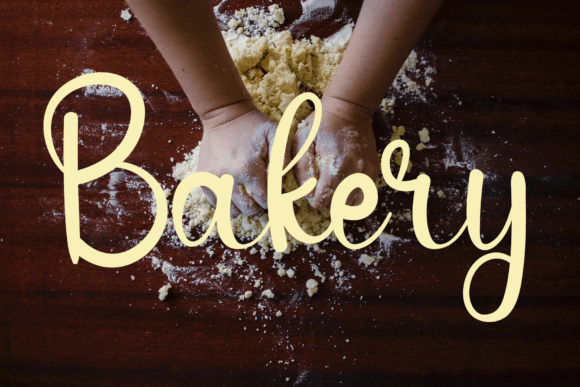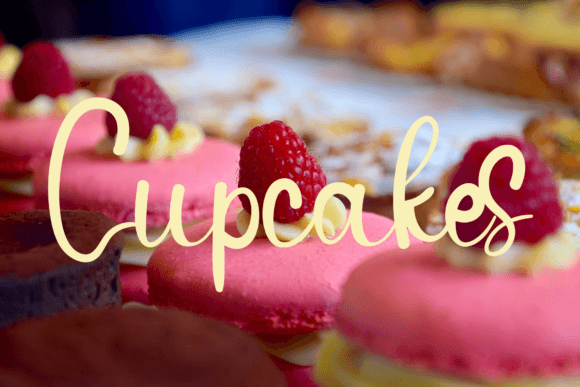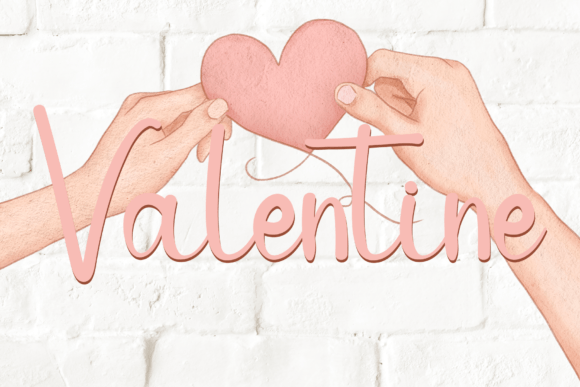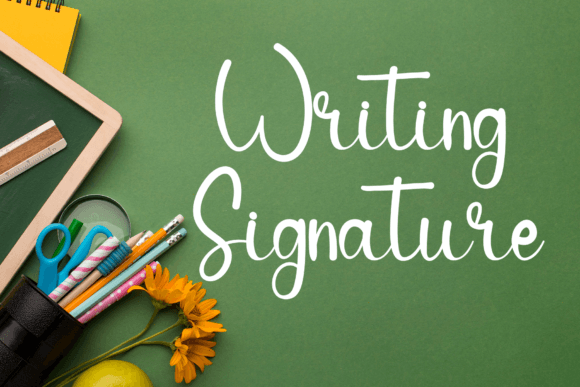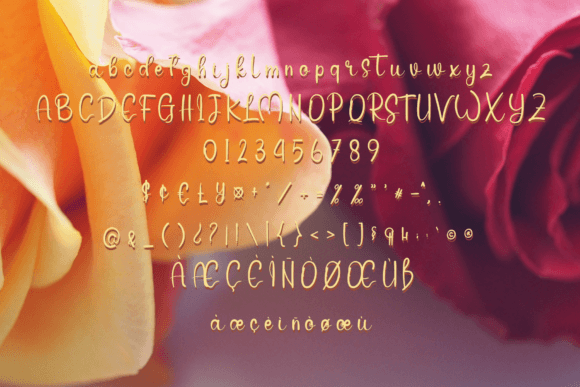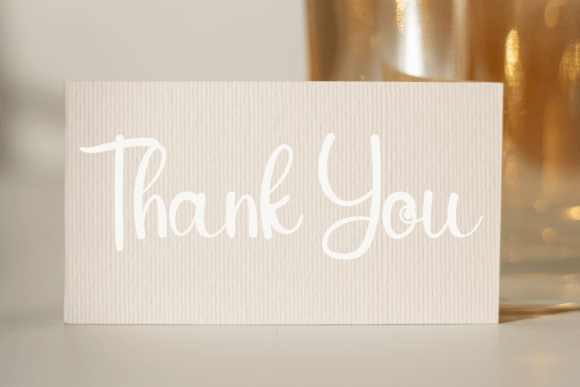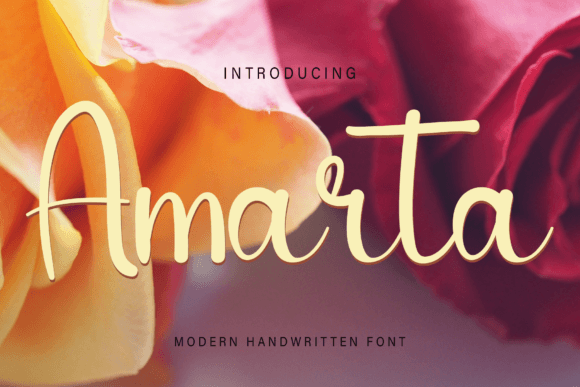
Discover the Elegance of Amarta Font: Elevate Your Designs with its Simple yet Stunning Style
In the world of typography, fonts play a crucial role in conveying the tone and aesthetic of a design. For those seeking a elegant and simple script font, Amarta is an excellent choice. This thin-lettered font has been gaining popularity among designers and crafters for its ravishing style and versatility. In this article, we’ll dive into the world of Amarta Font, exploring its features, uses, and benefits, as well as provide tips on how to make the most of this beautiful font.
What is Amarta Font?
Amarta is a thin-lettered and simple script font that exudes elegance and sophistication. Its clean and minimalist design makes it perfect for a variety of design applications, from wedding invitations and stationery to social media posts and digital art. The font’s simplicity allows it to adapt seamlessly to different contexts, making it a valuable addition to any designer’s toolkit.
Features of Amarta Font
So, what makes Amarta Font so special? Here are some of its key features:
• Thin-lettered design: Amarta’s delicate lettering gives it a light and airy feel, perfect for creating elegant and refined designs.
• Simple script style: The font’s simple script style makes it easy to read and versatile enough to be used in a variety of design applications.
• Clean and minimalist aesthetic: Amarta’s clean design ensures that it won’t overwhelm your design, allowing you to focus on the content and overall aesthetic.
Uses of Amarta Font
Amarta Font is incredibly versatile, making it suitable for a wide range of design projects. Here are some ideas to get you started:
• Wedding invitations: Create stunning wedding invitations that set the tone for a beautiful and elegant celebration.
• Stationery art: Add a touch of elegance to your stationery with Amarta Font, perfect for creating beautiful greeting cards, letters, and more.
• Social media posts: Elevate your social media game with eye-catching posts that showcase your brand’s personality and style.
• Digital art: Use Amarta Font to create stunning digital art pieces that showcase your creativity and skill.
Benefits of Using Amarta Font
So, why should you choose Amarta Font for your next design project? Here are some benefits to consider:
• Elegant and sophisticated: Amarta Font adds a touch of elegance and sophistication to any design, making it perfect for high-end brands and special occasions.
• Versatile: The font’s simplicity and clean design make it adaptable to different contexts and design applications.
• Easy to read: Amarta Font is easy to read, even in small sizes, making it perfect for body text and captions.
Tips for Using Amarta Font
To make the most of Amarta Font, here are some tips to keep in mind:
• Pair it with bold fonts: Combine Amarta Font with bold fonts to create visual interest and contrast.
• Experiment with colors: Try out different colors and gradients to add depth and personality to your design.
• Use it sparingly: Use Amarta Font sparingly to create emphasis and add elegance to your design.
In conclusion, Amarta Font is a beautiful and versatile font that can elevate your designs to the next level. Its thin-lettered and simple script style makes it perfect for creating elegant and refined designs, from wedding invitations and stationery to social media posts and digital art. With its clean and minimalist aesthetic, Amarta Font is a valuable addition to any designer’s toolkit.